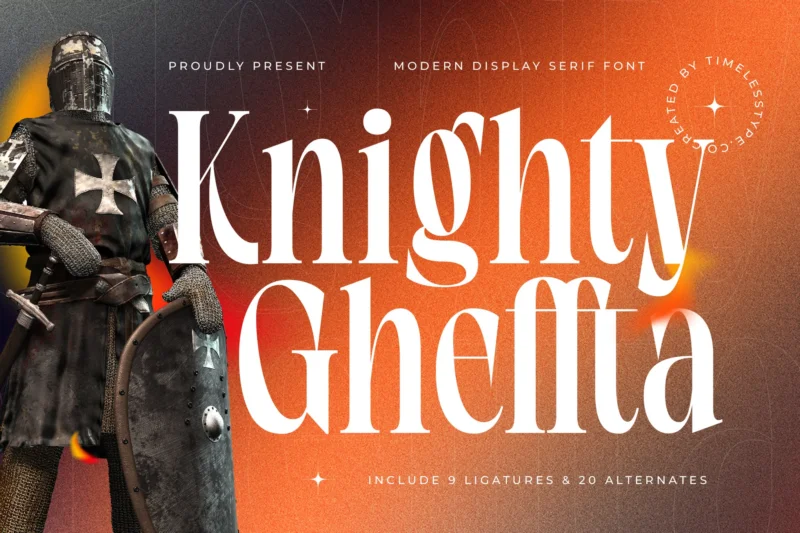
Knighty Gheffta – Modern Display Serif Font
Knighty Gheffta is a bold modern display serif font infused with medieval-inspired elegance, dramatic contrast, and regal character. Its sculpted curves, sharp serifs, and expressive alternates create a strong visual presence that feels powerful yet refined—perfect for fantasy titles, heroic branding, editorial layouts, game graphics, and atmospheric storytelling visuals. The font blends classic knight-era sophistication with contemporary typographic style.
Featuring 9 ligatures and 20 stylistic alternates, Knighty Gheffta offers versatile creative options for crafting striking headlines, ornamental logos, thematic posters, book covers, and cinematic promotional assets. Its confident letterforms, ornate details, and timeless aesthetic make it the ideal serif display font for designers seeking a bold, noble, and captivating look.